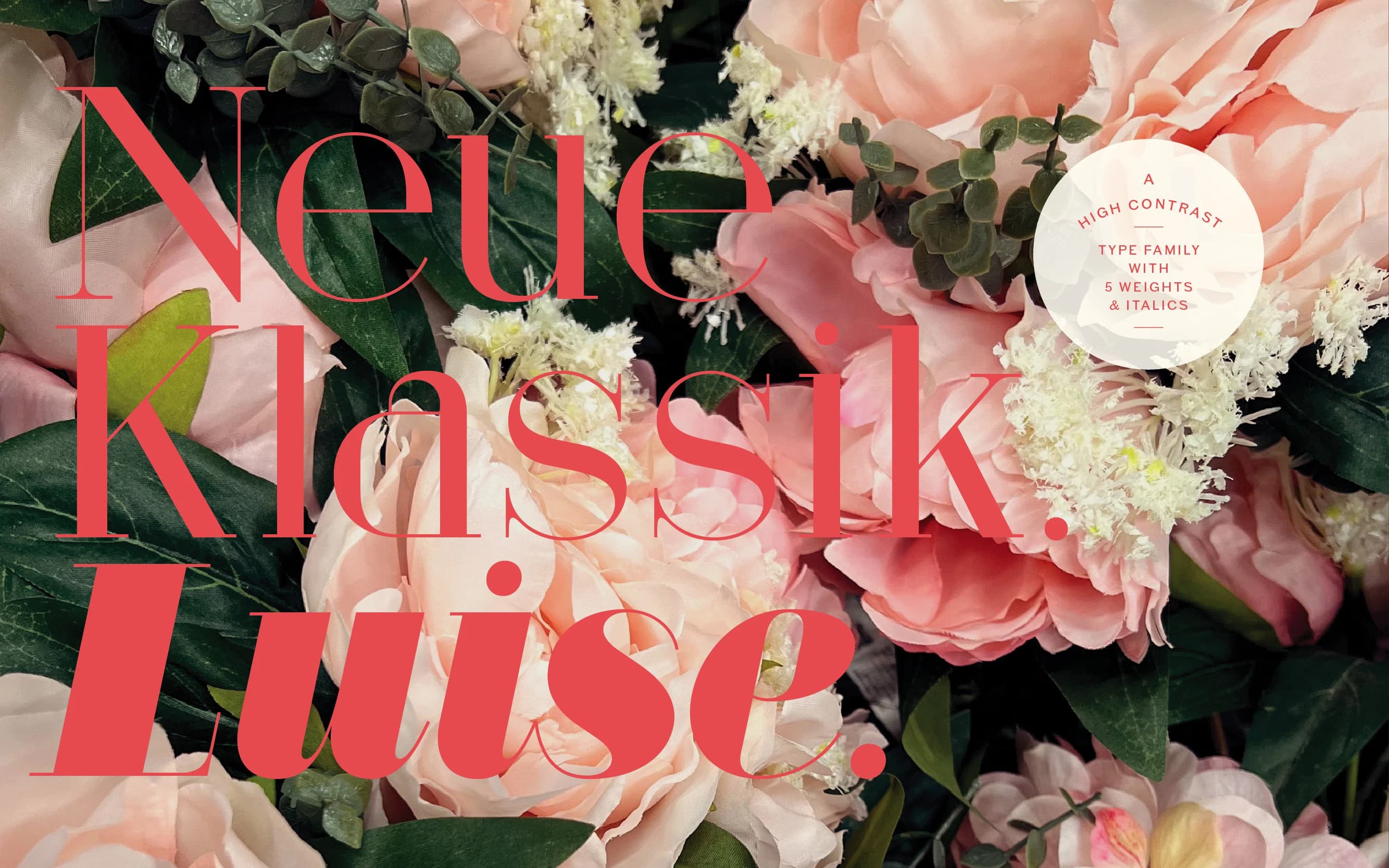
A serif typeface from HvD Fonts, likely positioned for refined text or editorial use.
HvD Fonts is known for refined text and display serifs; Luise fits their pattern of elegant transitional-leaning serif releases, though full classification requires direct page access.